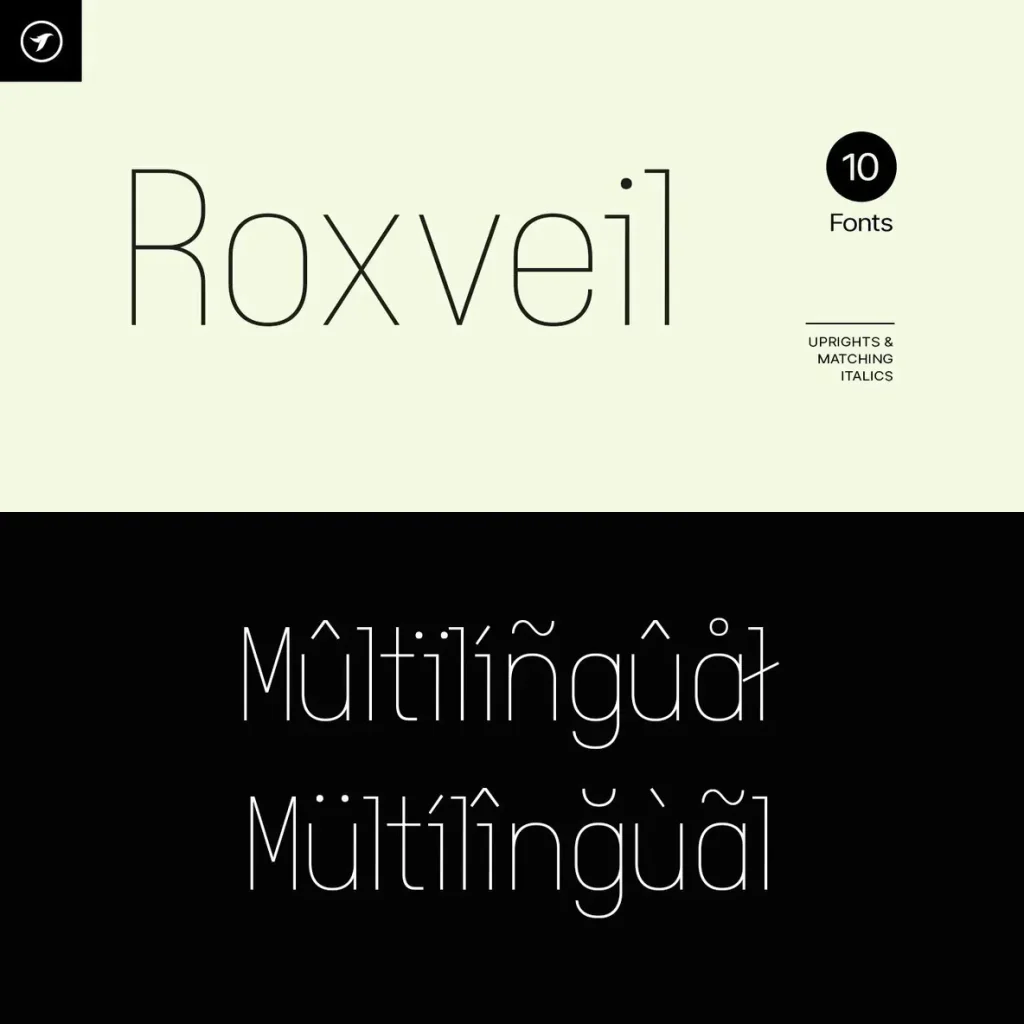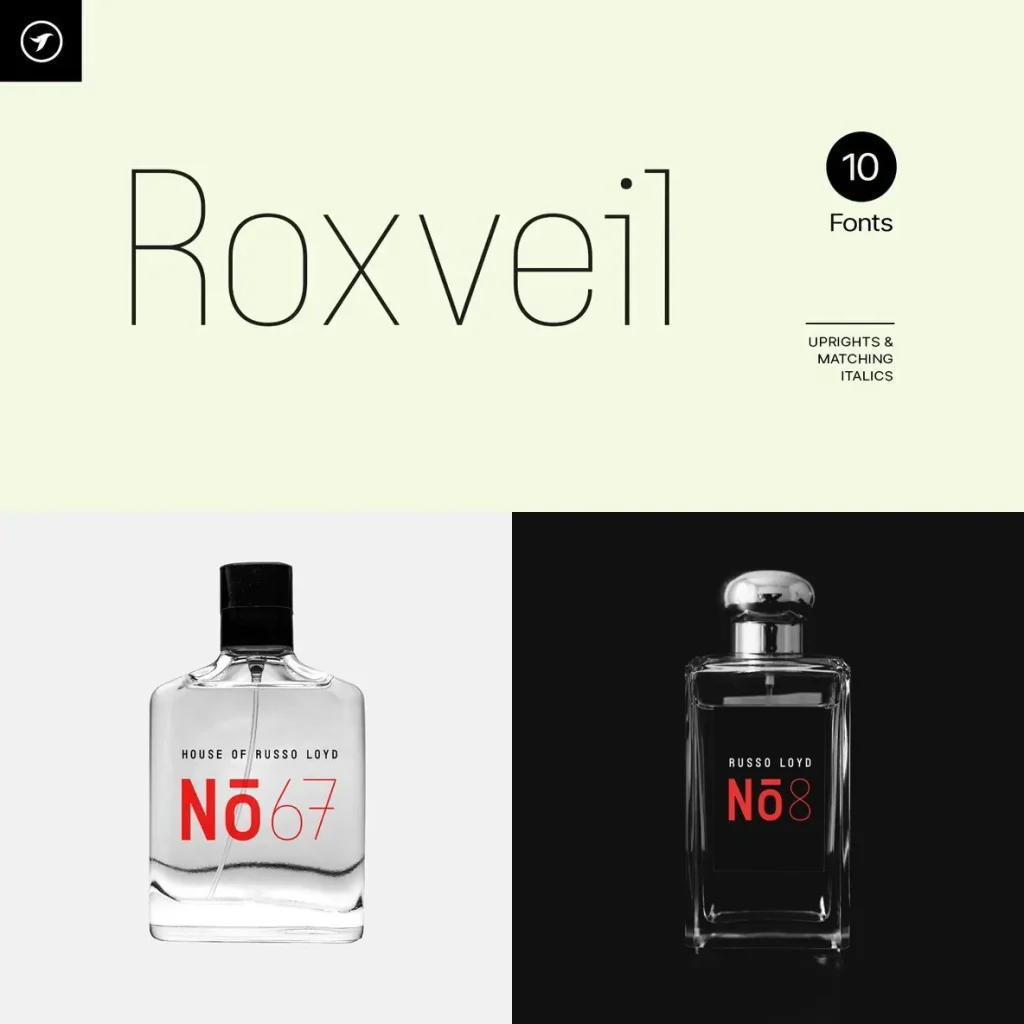
ROXVEIL — Display with a Creative Edge
ROXVEIL is a unique display typeface with distinctive shapes, contemporary style, and a strong creative personality. Its expressive letterforms give each word clear character and visual impact, while the overall design keeps a refined and balanced appearance.
Designed for memorable typographic identity, ROXVEIL works well across branding, posters, packaging, editorial layouts, and creative projects. Use it when a design needs a confident display font that feels contemporary, expressive, and carefully composed.